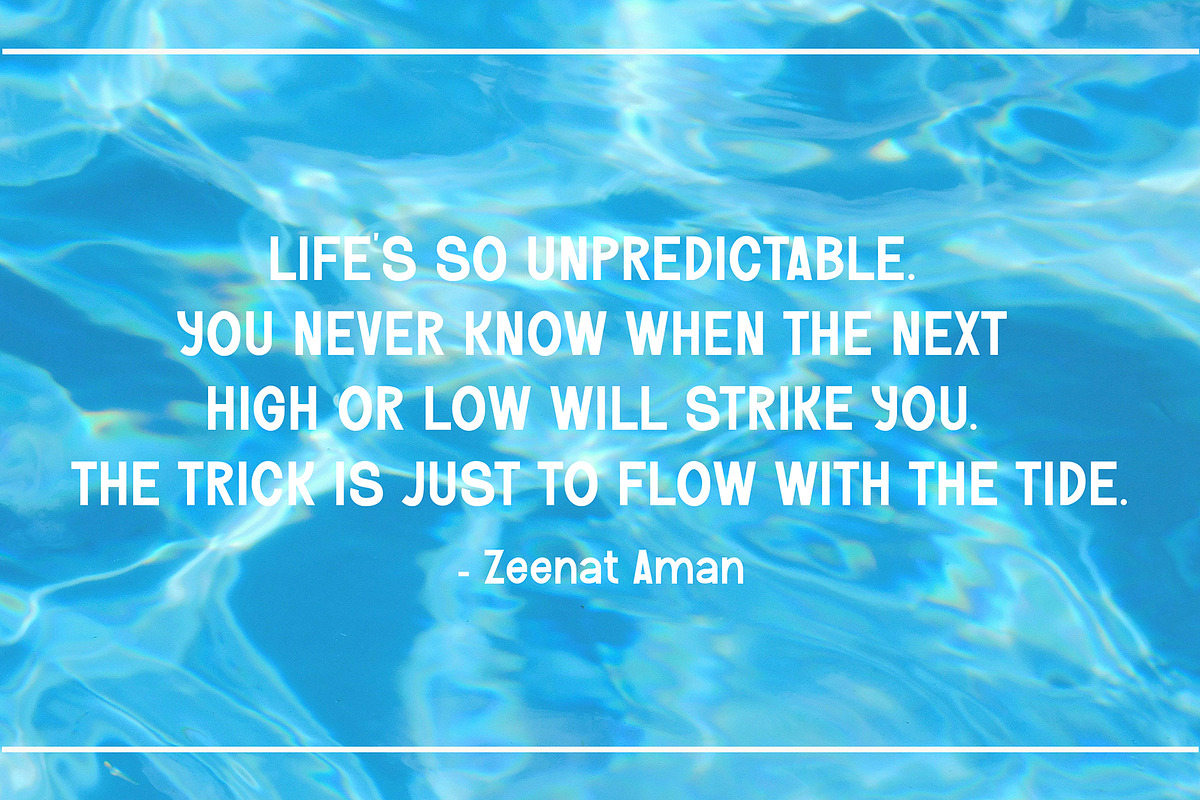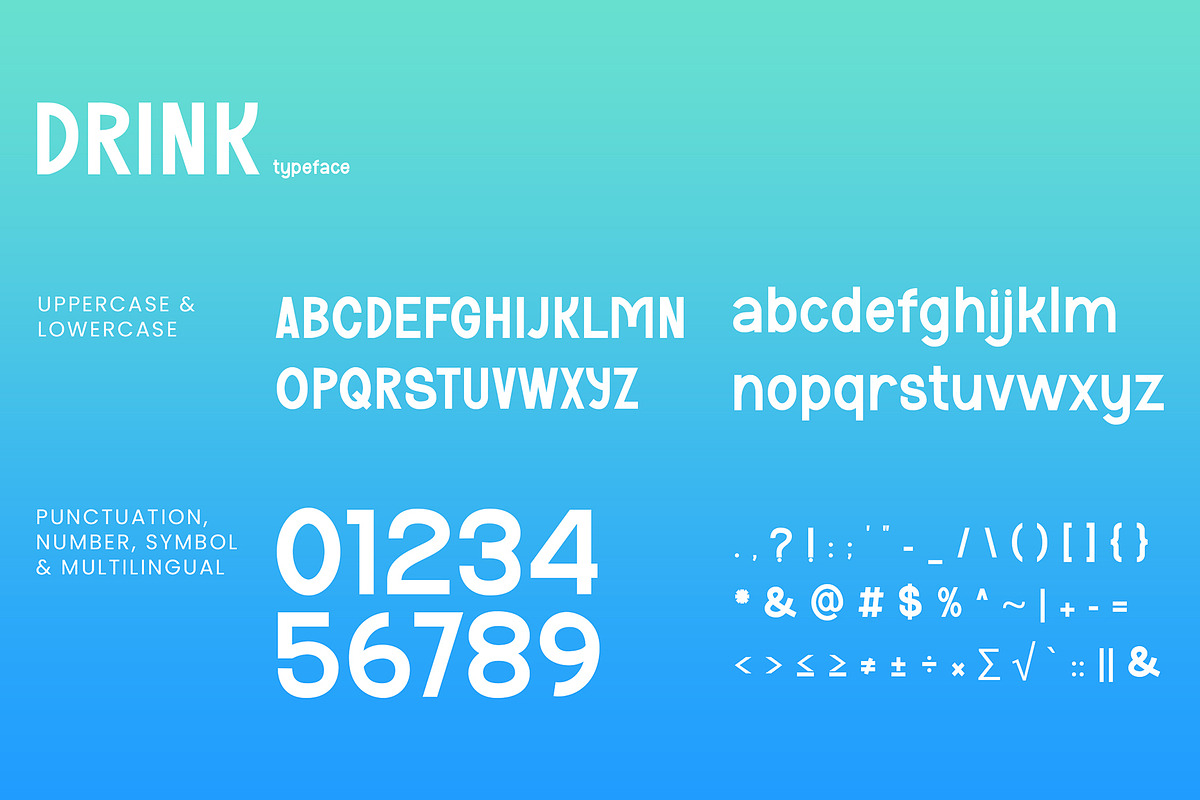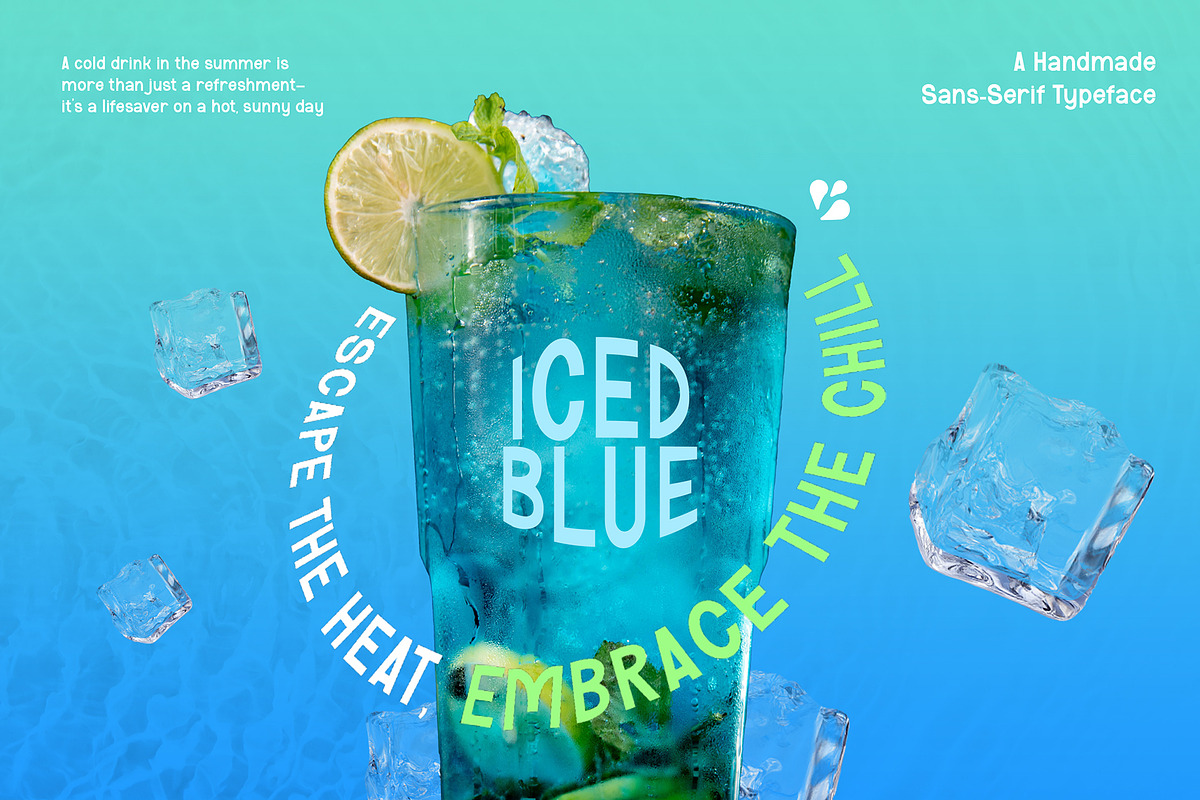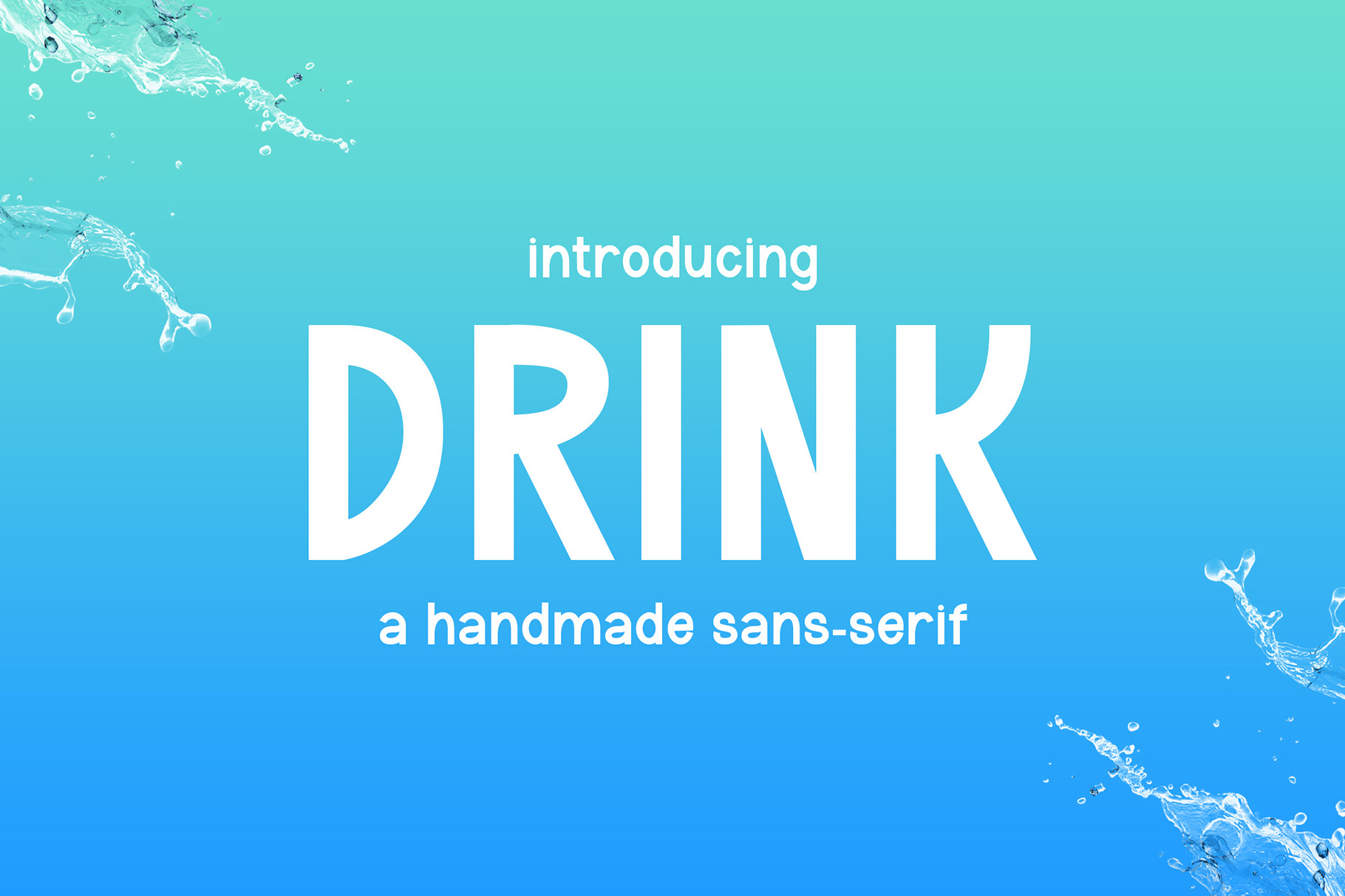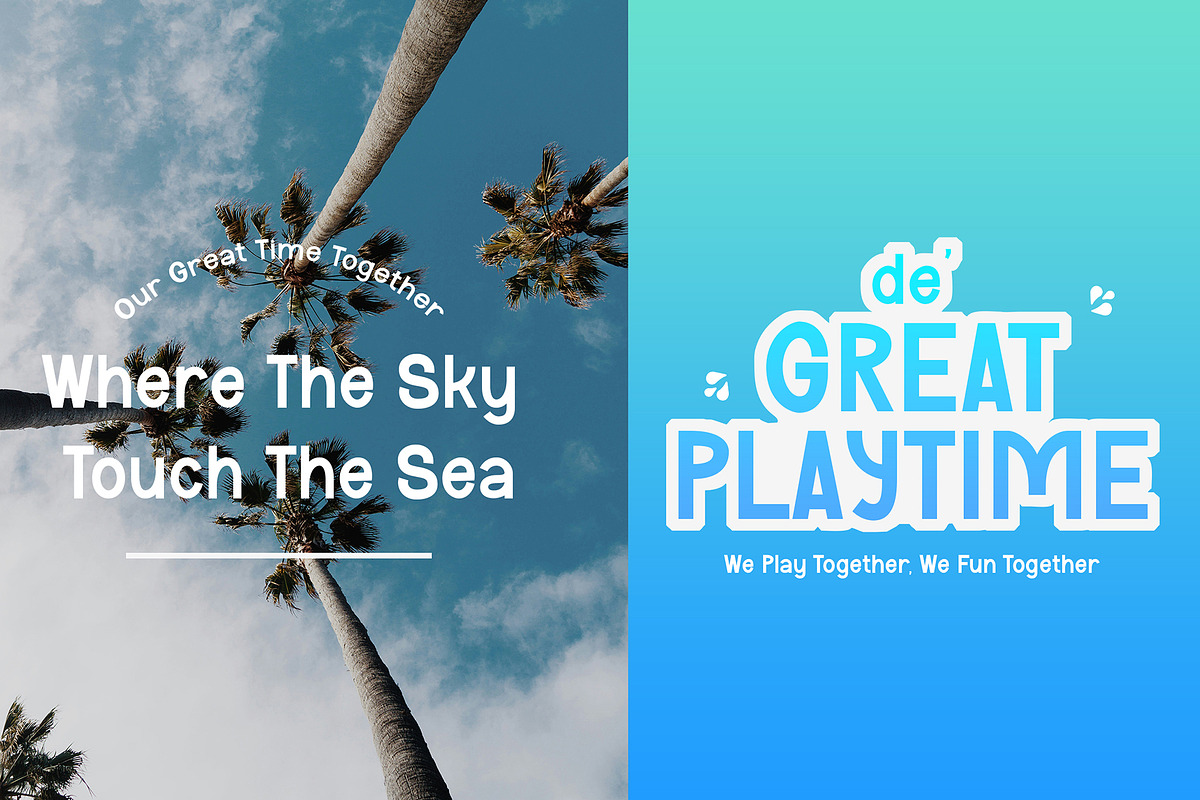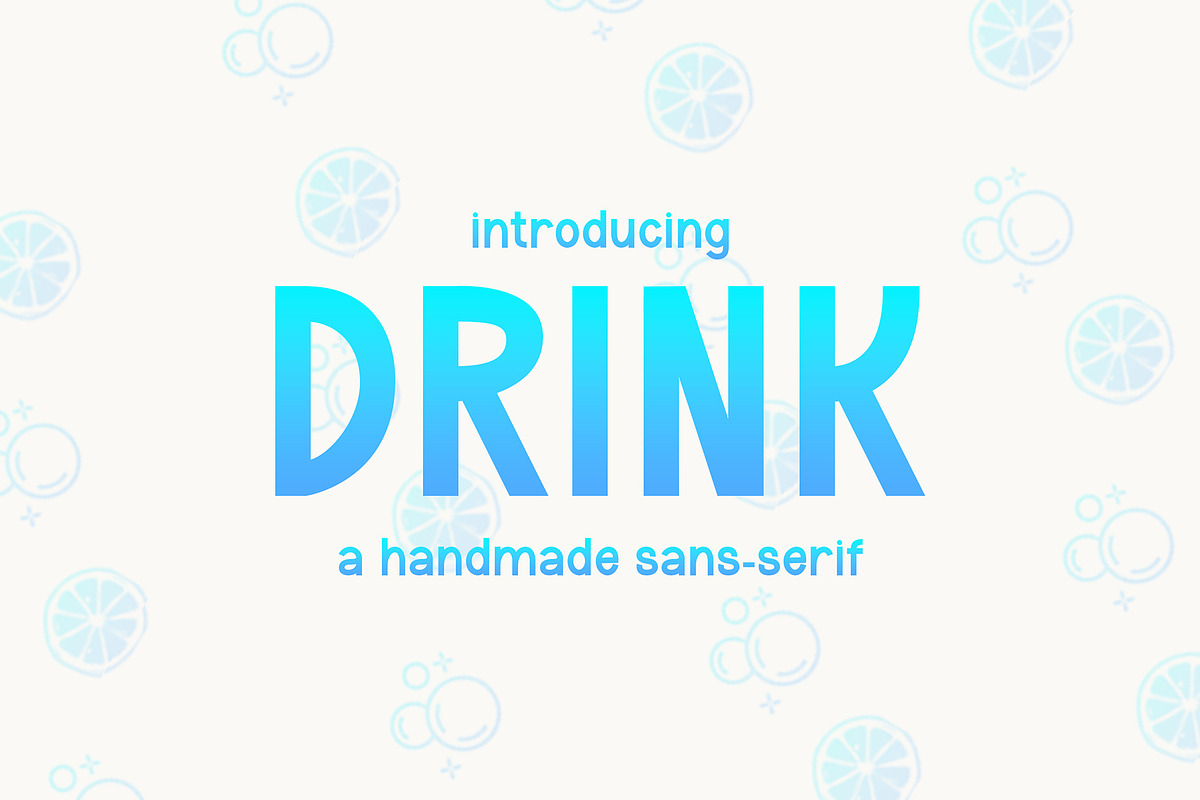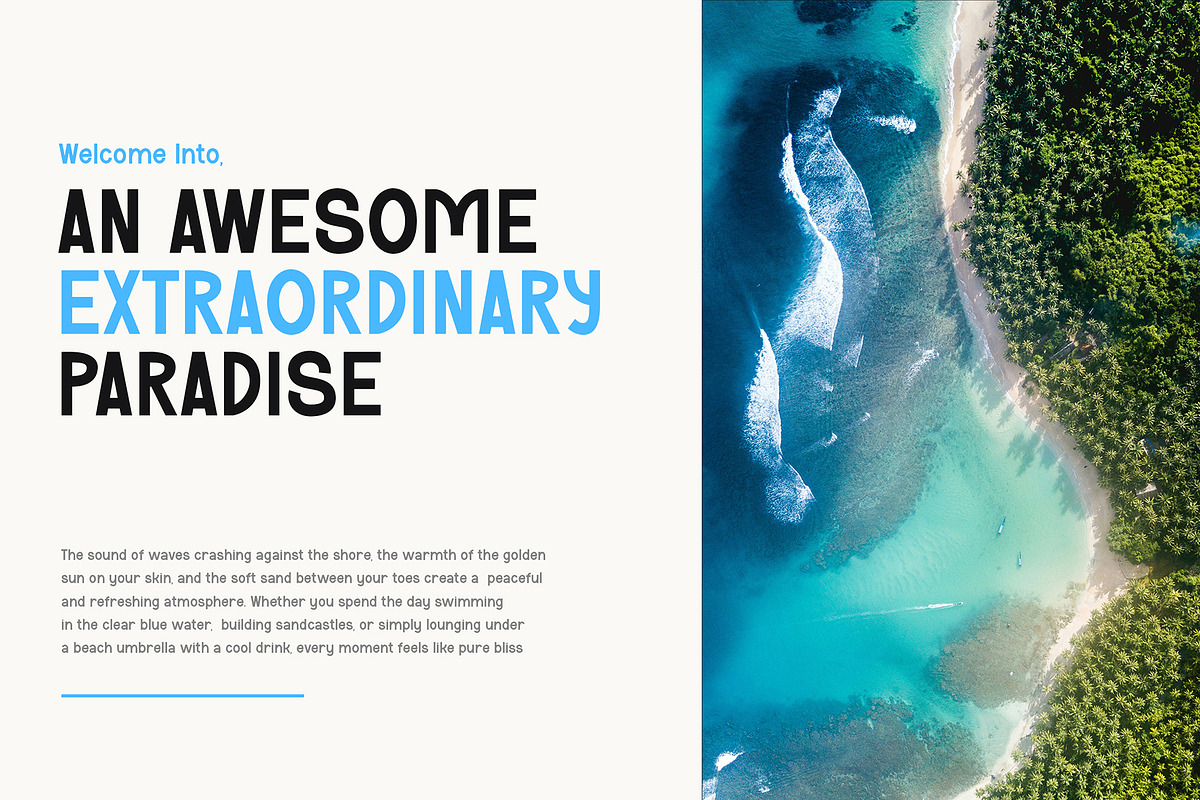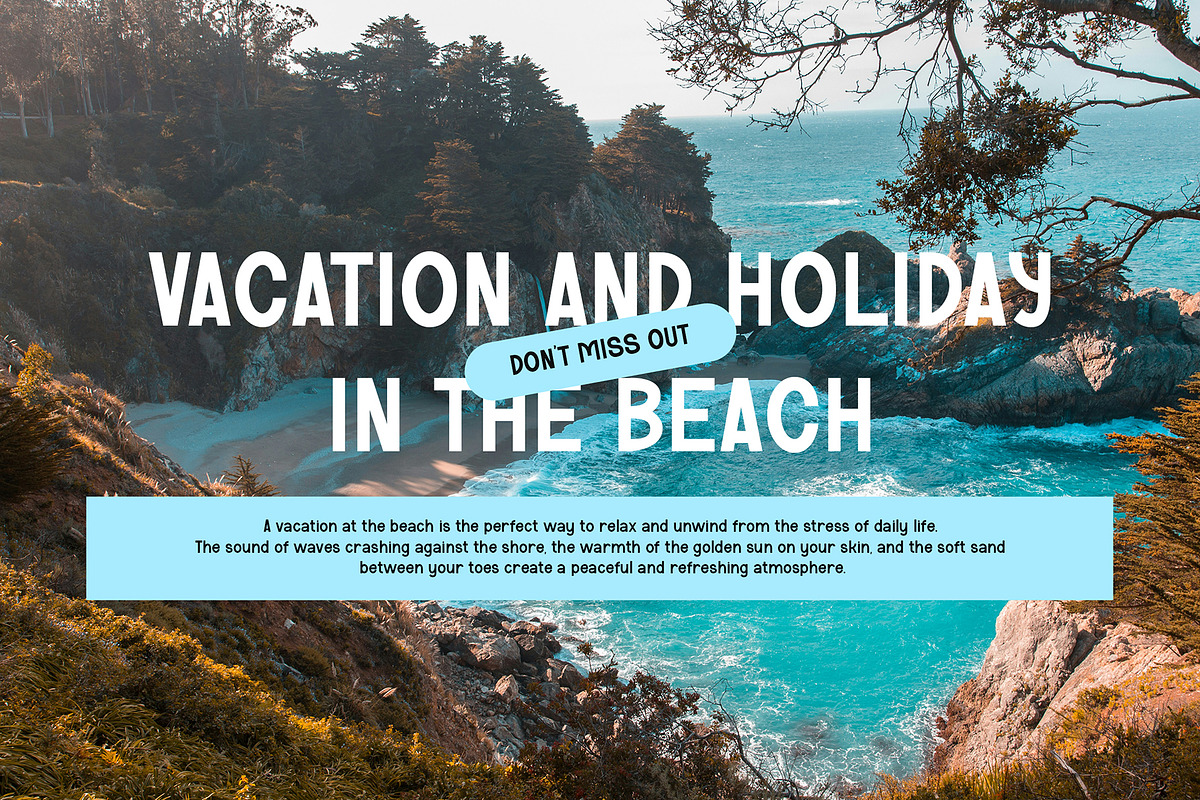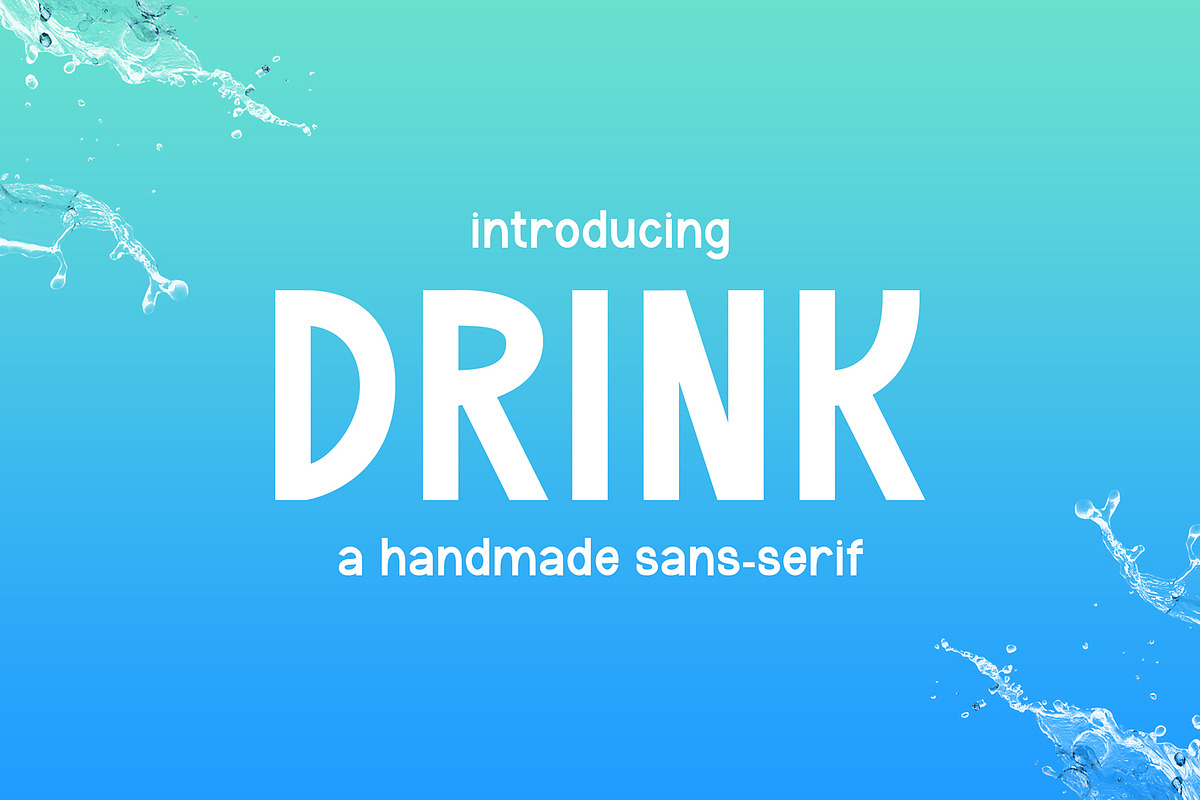
Handwritten Sans Serif Font
DRINK - Handwritten Sans Serif Font
Handwritten, Playful & Cute - Sans Serif Display Font
Perfect for Logotype, brand logo, creative industry, signature, headline/title on poster, brochure, packaging, wedding invitation, quotes, magazine, social media etc.